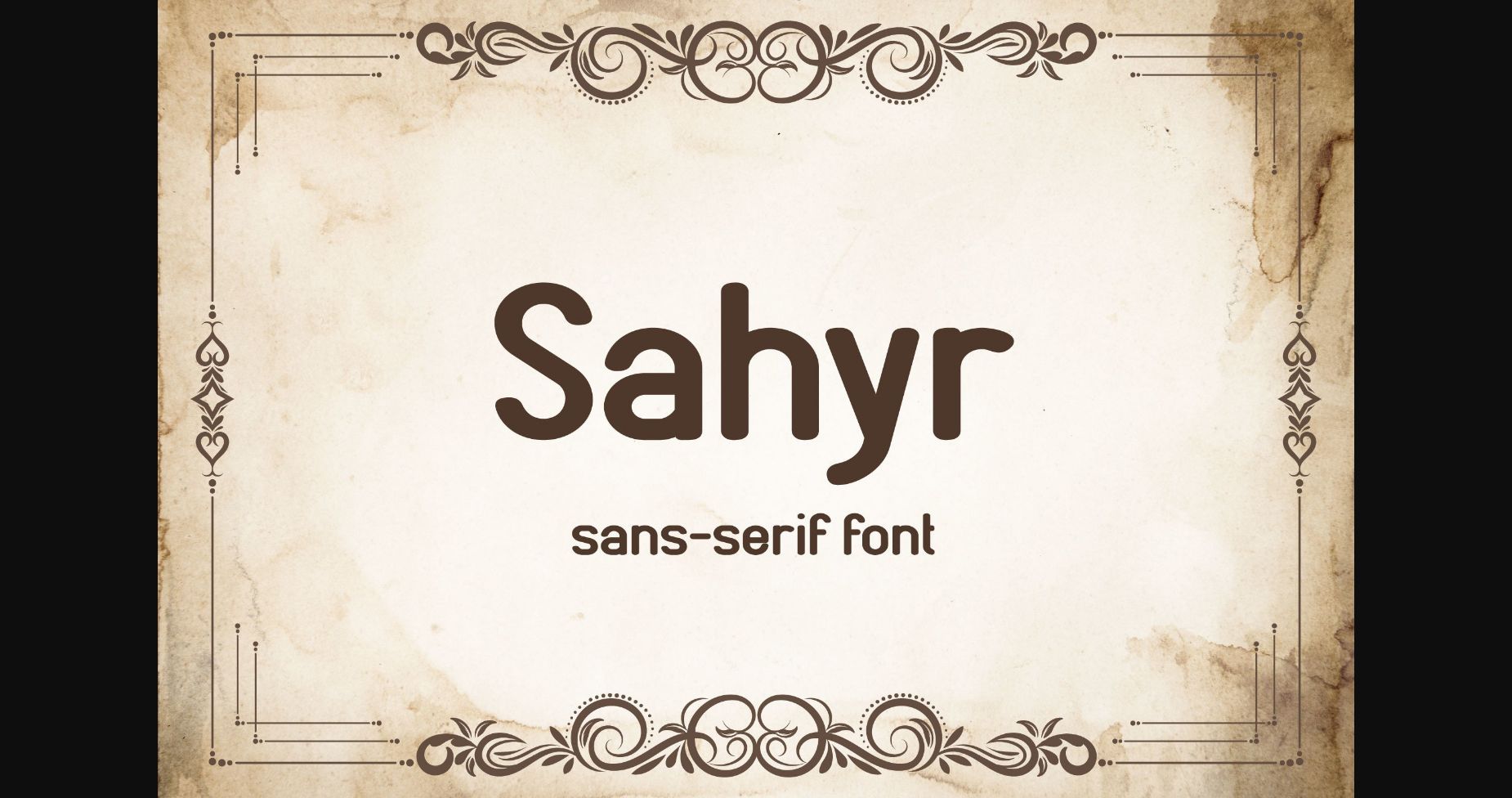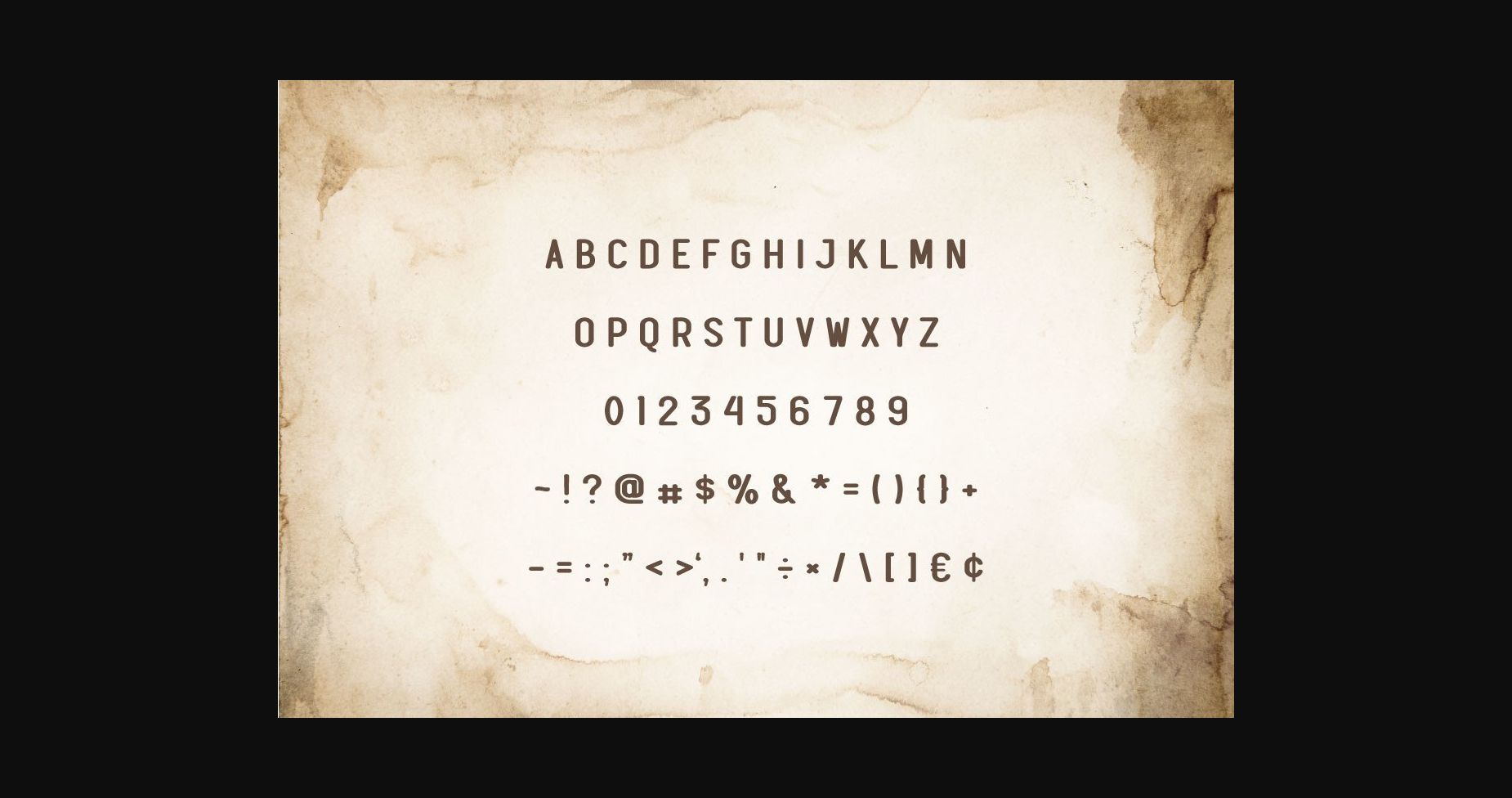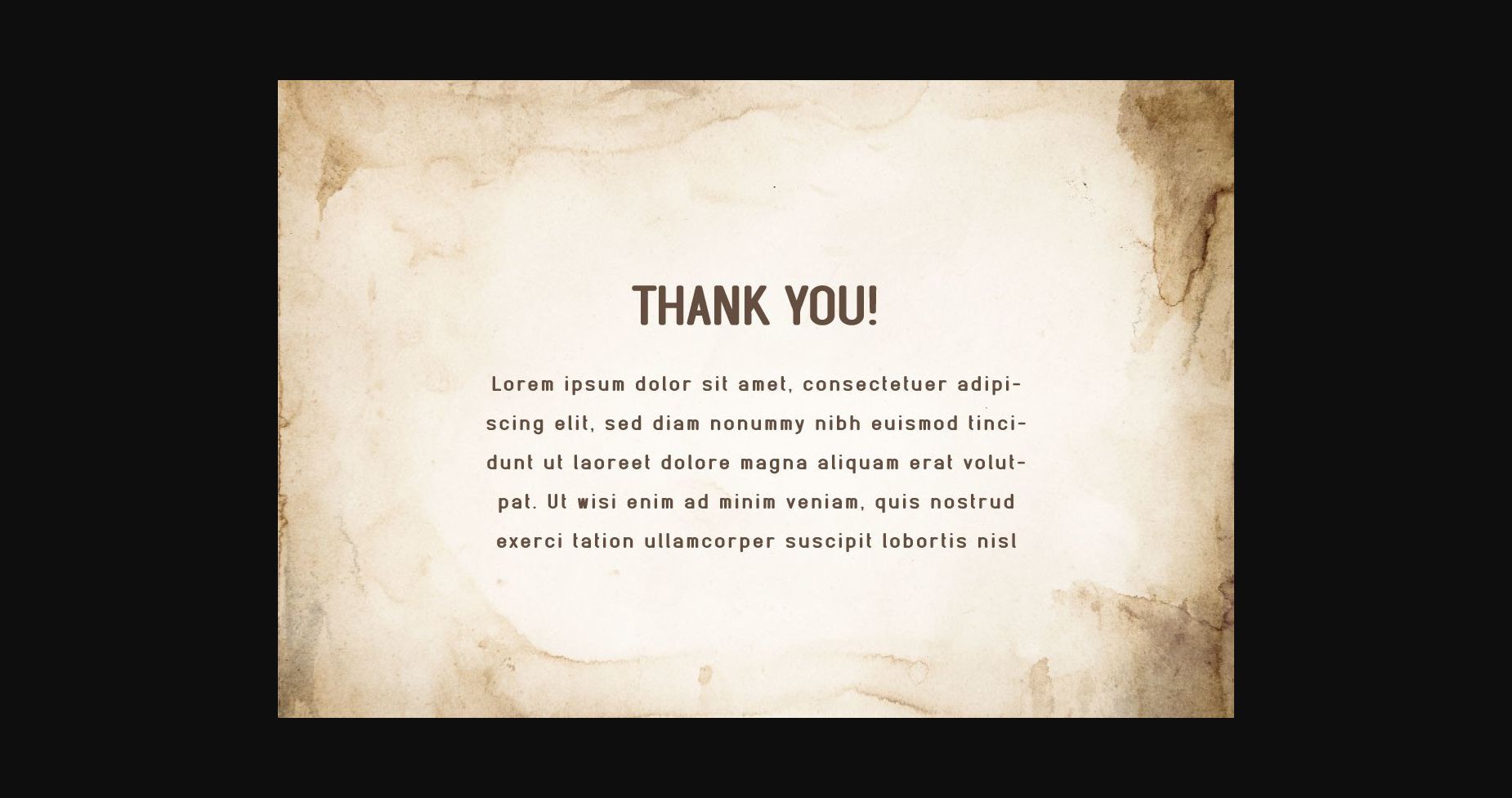
Sahyr Font
About Sahyr Font
Sahyr is a modern and elegant sans serif font. No matter the topic, this font will be an incredible asset to your fonts’ library, as it has the potential to elevate any creation.